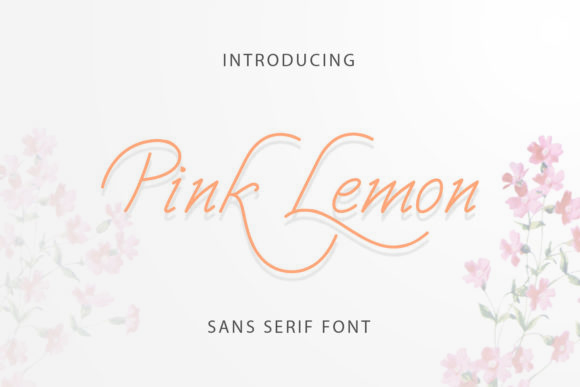
Dive into the world of elegance and romance with Pink Lemon Font, a breathtaking script font that will transform your creative visions into masterpieces. Its smooth curves and graceful strokes embody the essence of love, making it the perfect choice for wedding invitations, love letters, and heartfelt designs.
Experience the joy of effortless writing with Pink Lemon's well-balanced and flowing nature. Each letter dances across the page, creating a visual symphony that captures the eye and stirs the emotions. Whether you're a seasoned designer or a passionate hobbyist, Pink Lemon empowers you to express your love and creativity in an unforgettable way.
From the moment you introduce Pink Lemon to your design arsenal, you'll discover a boundless realm of possibilities. Unleash your creativity and craft wedding invitations that radiate elegance and timeless beauty. Let love letters flow from your pen, adorned with the enchanting charm of Pink Lemon's script. Transform ordinary designs into extraordinary works of art that convey the depth of your emotions.
Indulge in the captivating allure of Pink Lemon today and embark on a creative journey that will leave an everlasting imprint on your designs. Your words will ignite a spark in the hearts of your readers, captivating them with the undeniable magic of love and romance.